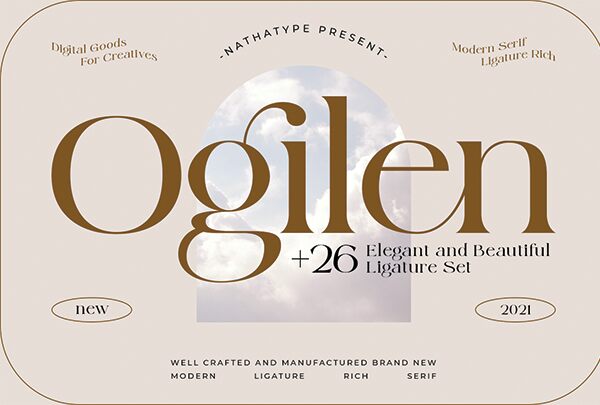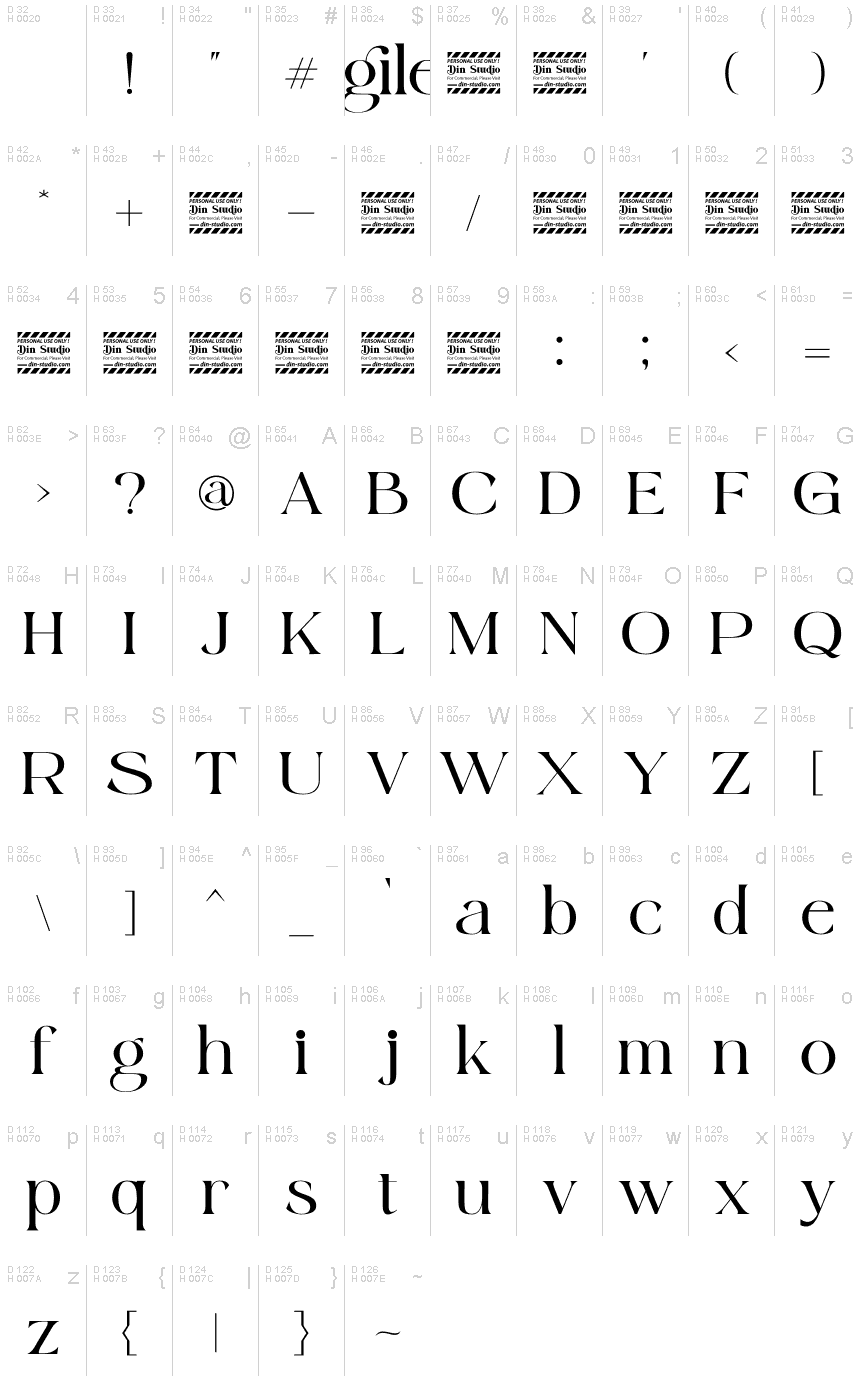
Ogilen, crafted by the talented Din Studio, is an exquisite and timeless font that exudes elegance with its vintage charm. This semi-expanded typeface adds a touch of sophistication to any project it graces.
Perfect for wedding invitations, classy branding materials, and luxury fashion editorials, Ogilen effortlessly captures attention and evokes a sense of refined beauty. Its graceful serifs and semi-expanded width lend themselves perfectly to creating memorable logos, captivating headlines, or even elegant book covers.
With Ogilen, your projects will radiate an air of vintage allure and stand out from the crowd.